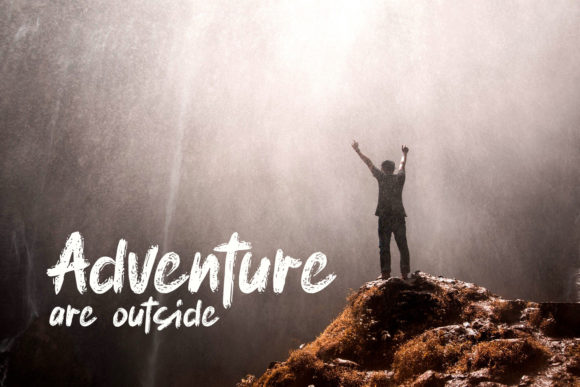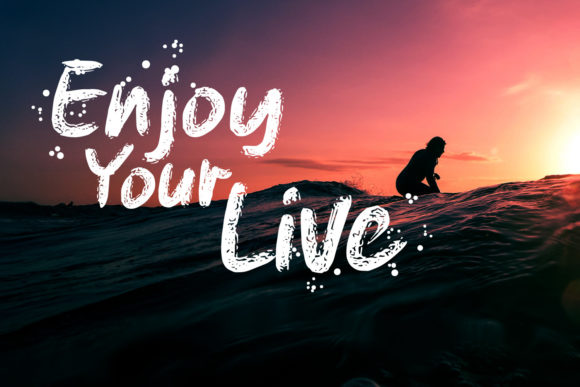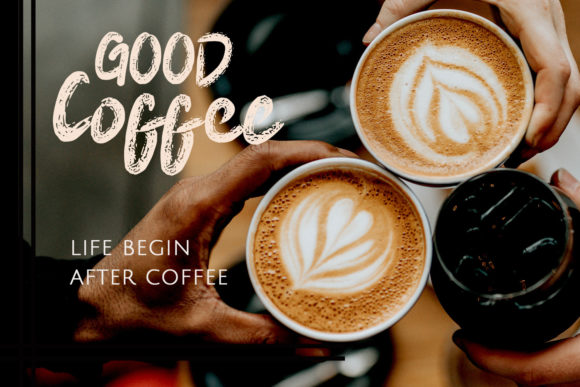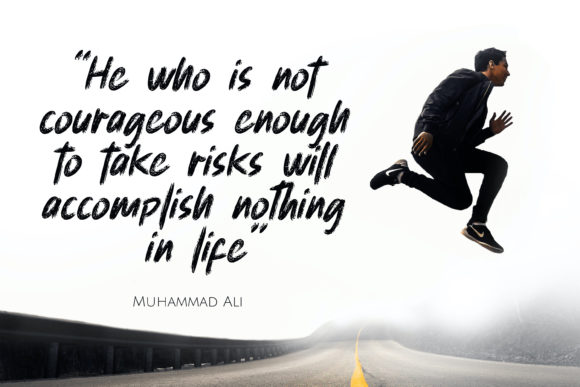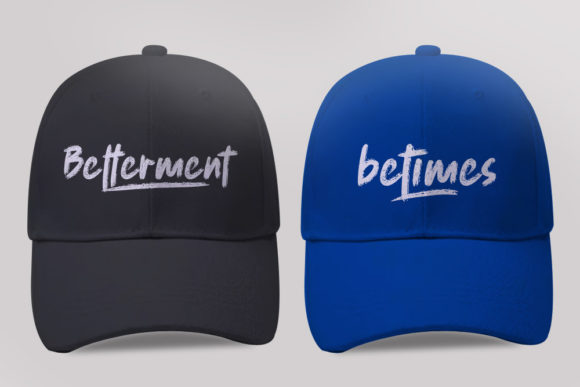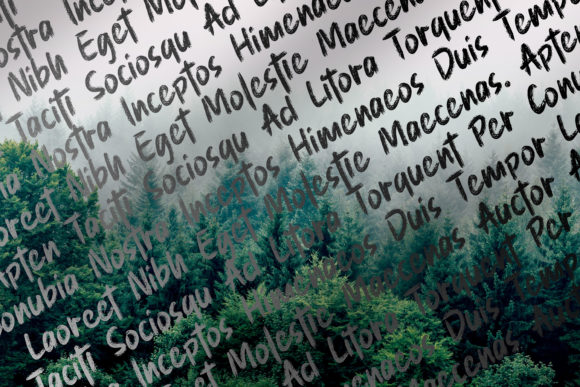
Introducing Another Font: The Ultimate Display Font for Creative Projects
Are you tired of using the same old fonts in your design projects? Look no further! Another Font is here to revolutionize the way you approach typography. This cool, rough textured, and brushed display font is perfect for designers and crafters who want to add a unique touch to their work.
What Makes Another Font Special?
Another Font is not just any ordinary font. It’s a PUA (Private Use Area) encoded font, which means you can access all of the glyphs and swashes with ease. This feature makes it incredibly versatile and perfect for a wide range of projects, from branding and advertising to packaging and signage.
Key Features of Another Font
- PUA Encoded: Easy access to all glyphs and swashes, giving you complete creative control.
- Rough Textured and Brushed: Adds a unique, organic feel to your designs, making them stand out.
- Display Font: Perfect for headlines, titles, and short text, where you want to make a bold statement.
- Cool and Modern: Ideal for projects that require a fresh, contemporary look.
Why Choose Another Font?
With Another Font, you can confidently add a professional and stylish touch to your projects. Its unique texture and brushed effect give it a distinctive look that’s sure to grab attention. Whether you’re working on a logo, brochure, or social media graphics, Another Font is the perfect choice.
How to Use Another Font in Your Projects
- Pair it with other fonts: Combine Another Font with a clean sans-serif font for a striking contrast.
- Experiment with swashes: Use the glyphs and swashes to add decorative touches to your designs.
- Play with texture: Mix and match different textures and colors to create a unique look.
Who Can Benefit from Another Font?
Another Font is perfect for:
- Graphic Designers: Looking for a unique font to add to their portfolio.
- Crafters: Creating handmade products, such as cards, scrapbook pages, and DIY crafts.
- Marketers: Needing a bold and attention-grabbing font for advertising and branding campaigns.
- Small Business Owners: Wanting to create a professional and stylish visual identity for their brand.
- What is PUA encoding? PUA (Private Use Area) encoding allows you to access special glyphs and swashes that are not available in standard fonts.